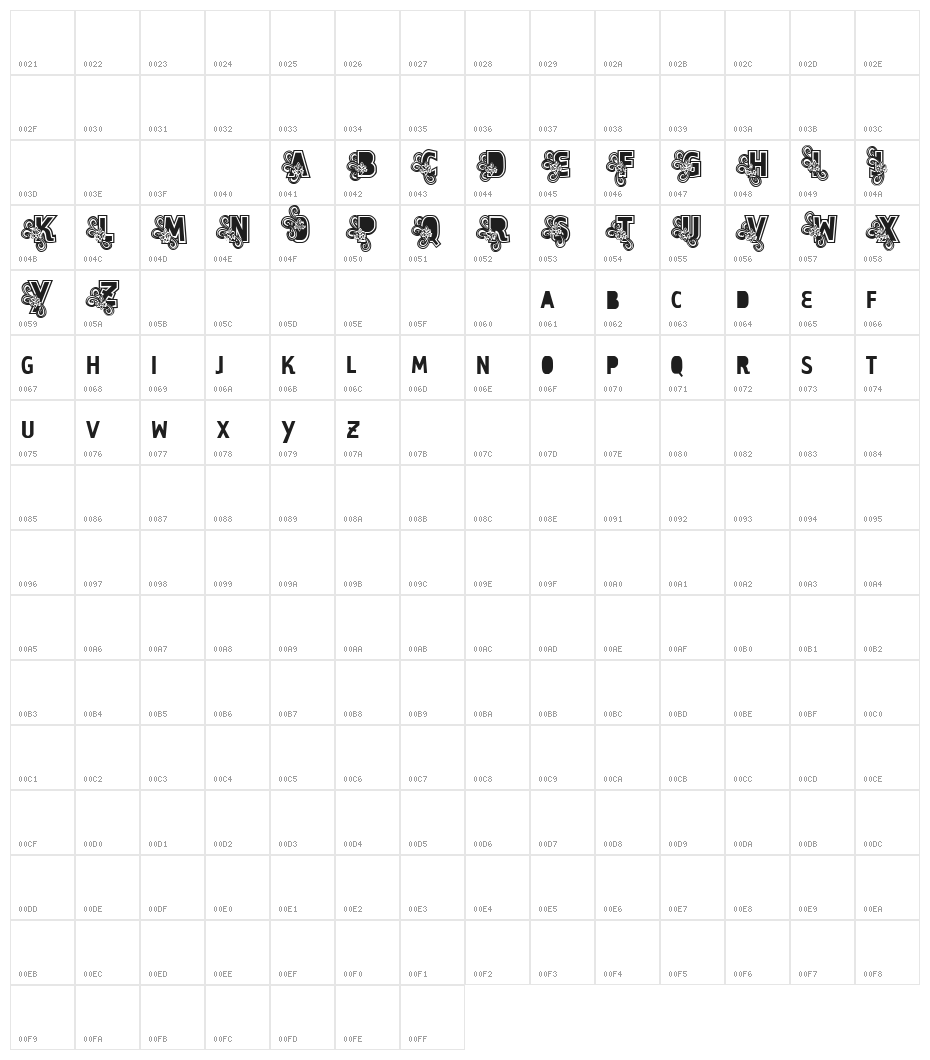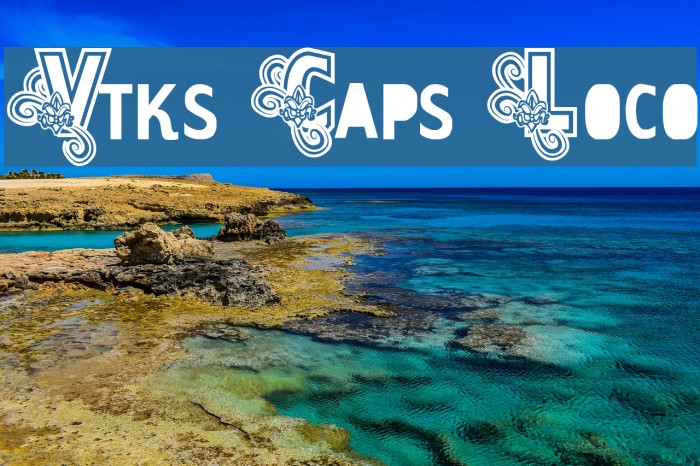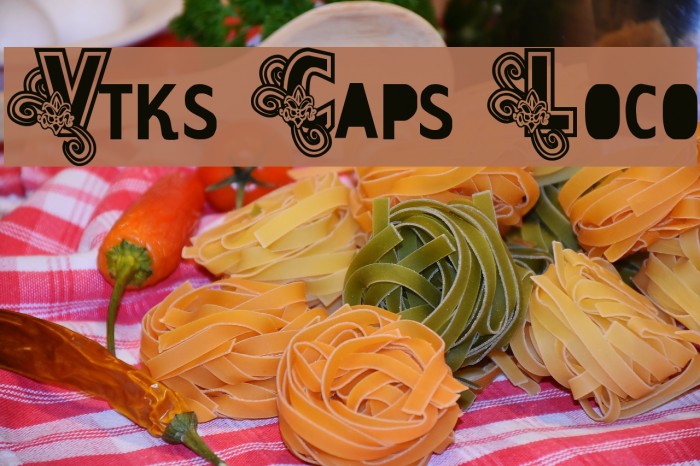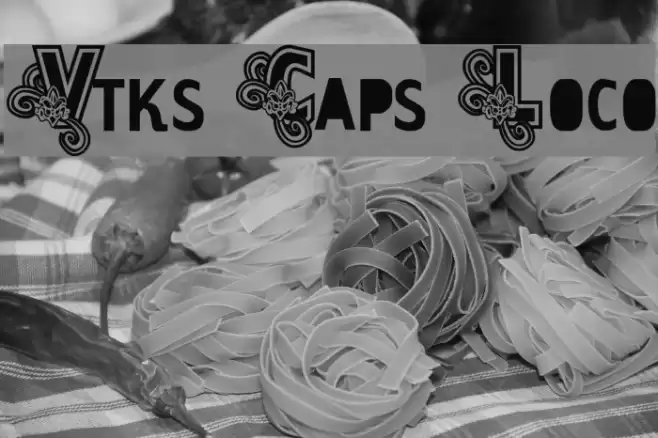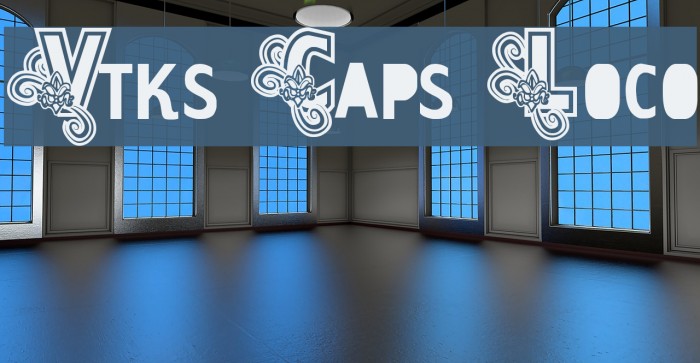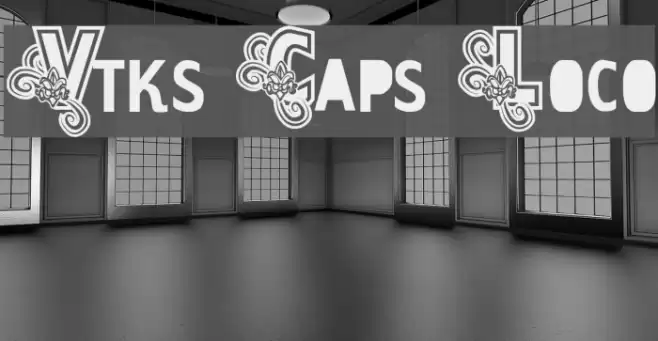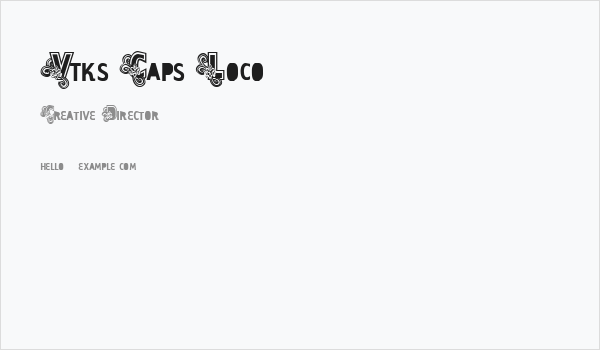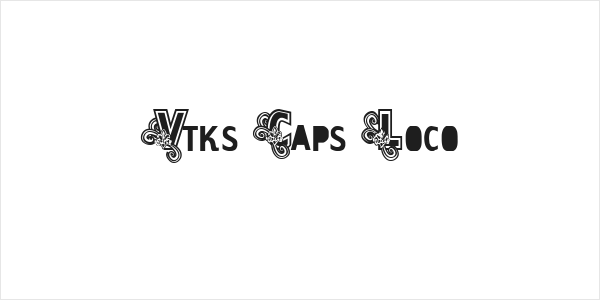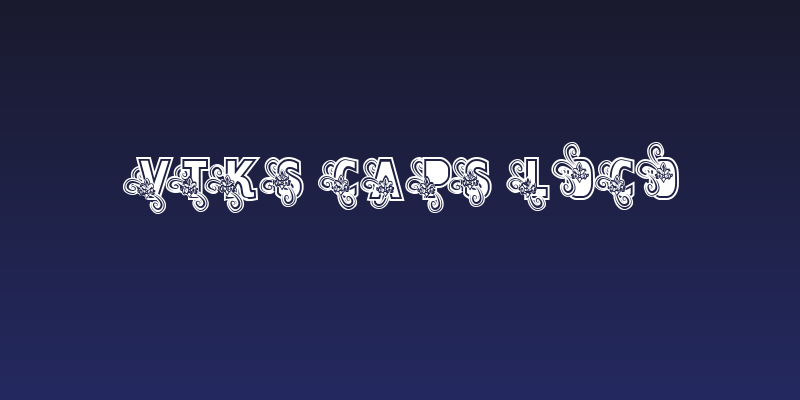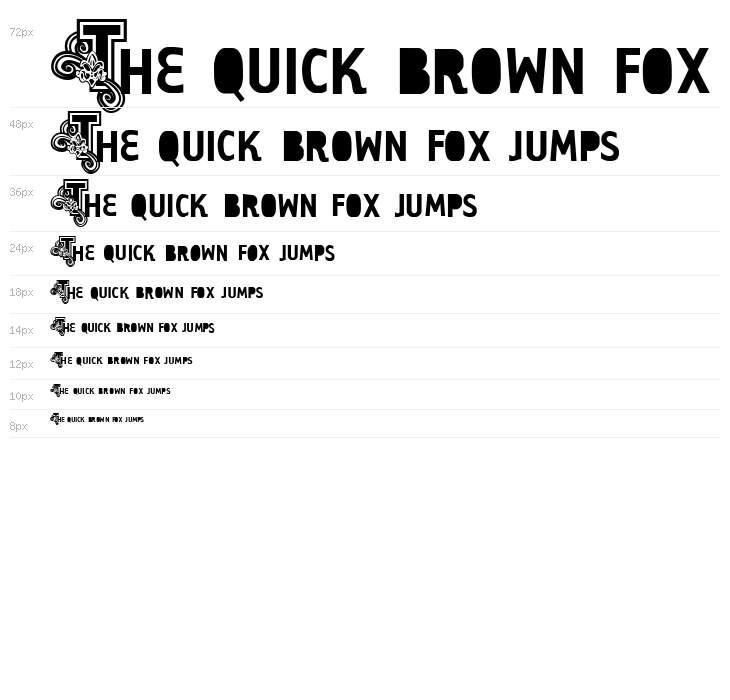
Vtks Caps Loco Font
Vtks Caps Loco Description
This font presents a bold and decorative style, characterized by intricate floral and ornamental elements integrated into the uppercase letters. The design is highly detailed, with each letter featuring unique embellishments that create a sense of elegance and complexity. The boldness of the characters ensures high visibility, making it suitable for standout designs. The font's artistic flair and intricate patterns suggest a vintage or classical influence, while maintaining a modern edge through its bold presentation.
| Overall Style | Vintage, Decorative |
| Use Case | Headlines, Logos, Decorative Text |
| Proposed Projects | Ideal for vintage-themed posters, wedding invitations, branding for luxury products, and artistic projects requiring a touch of elegance. |